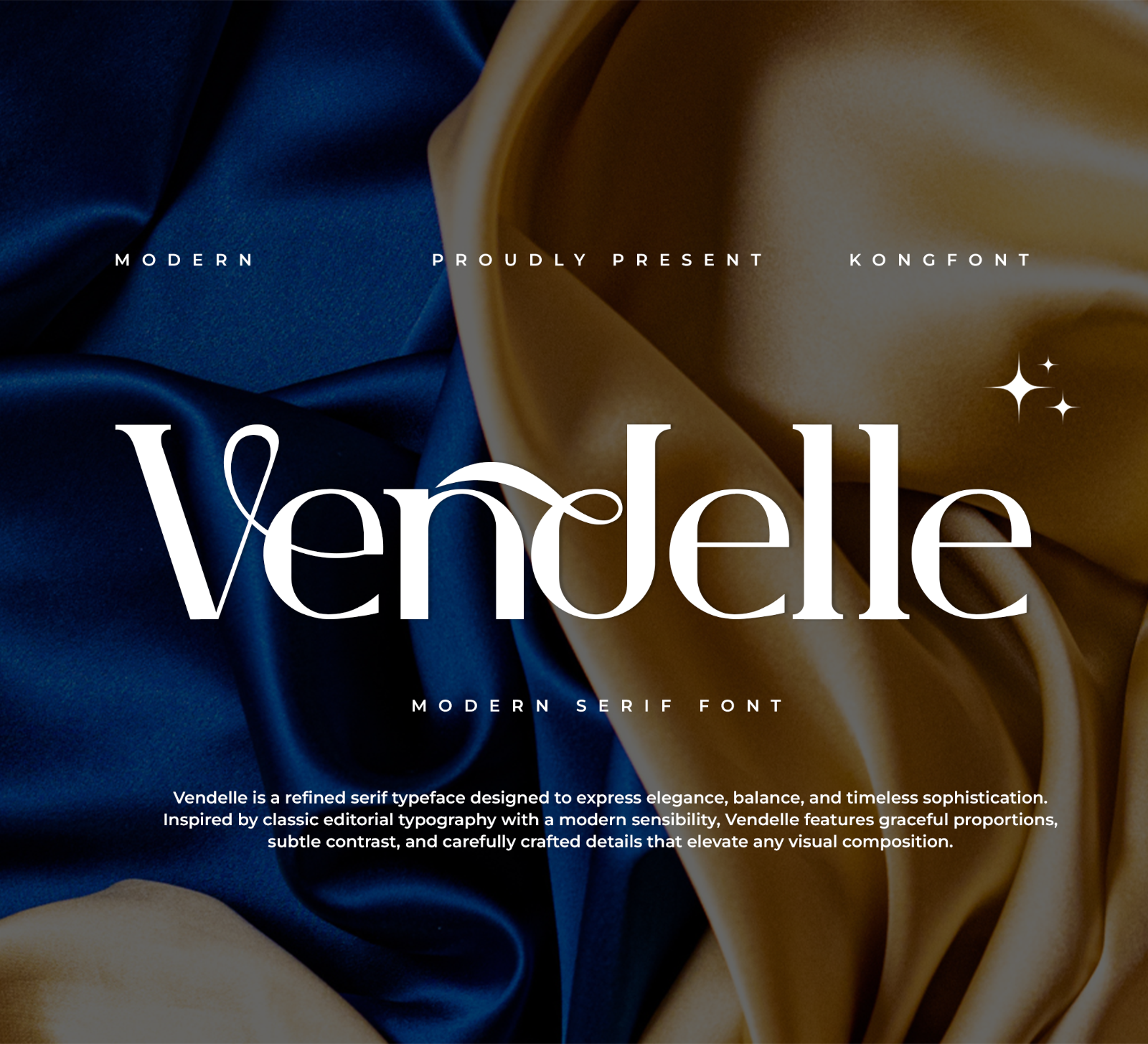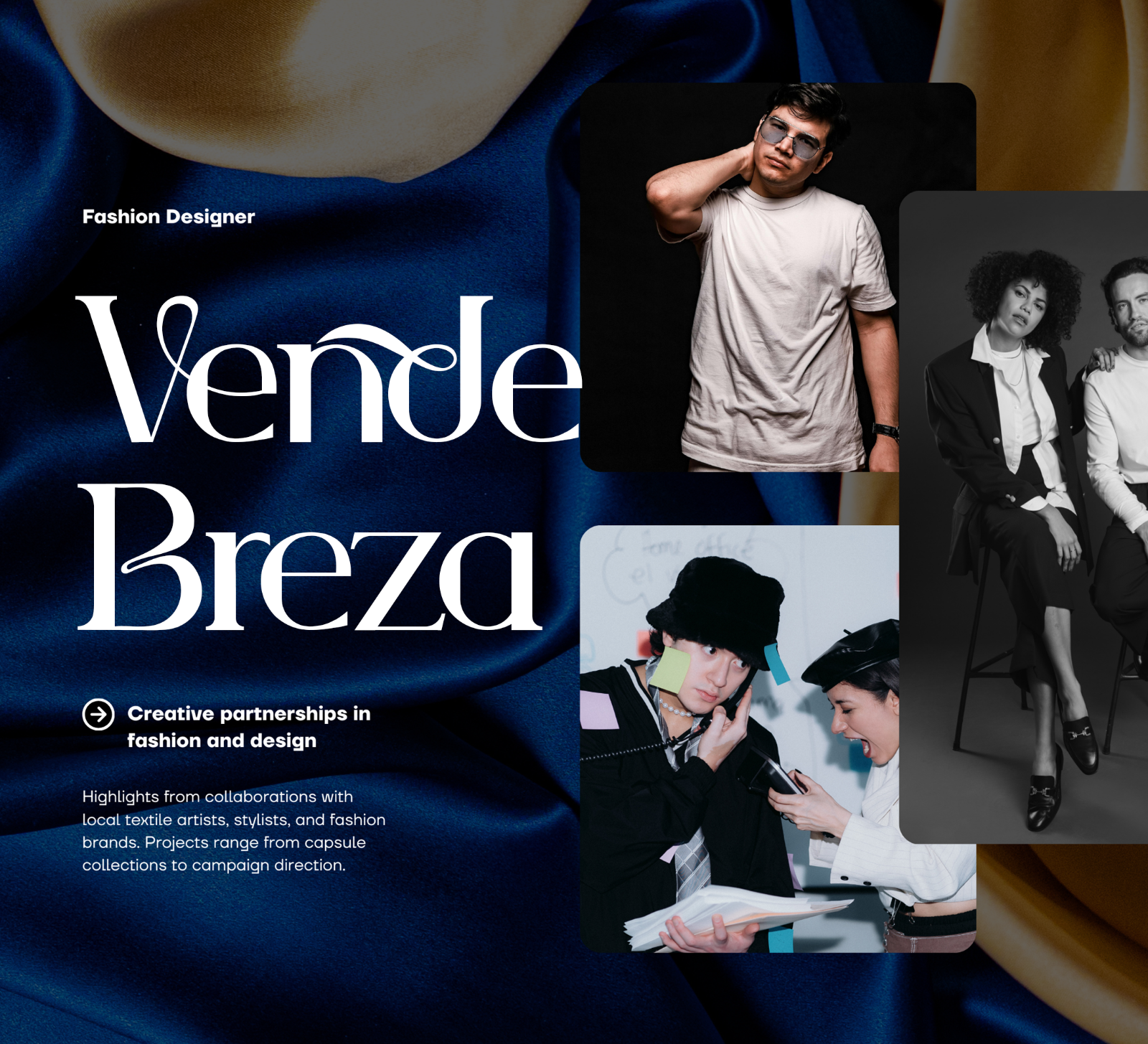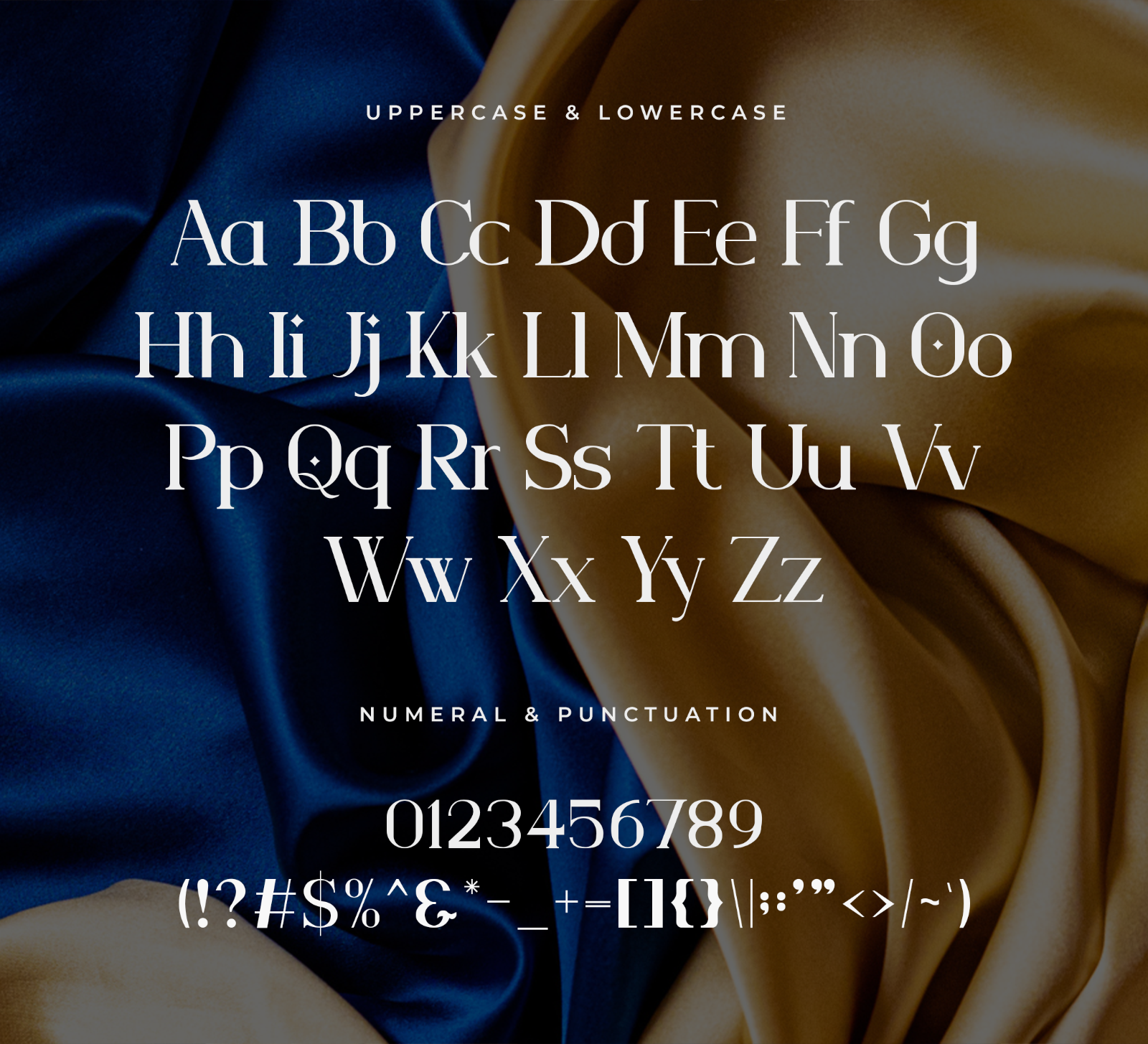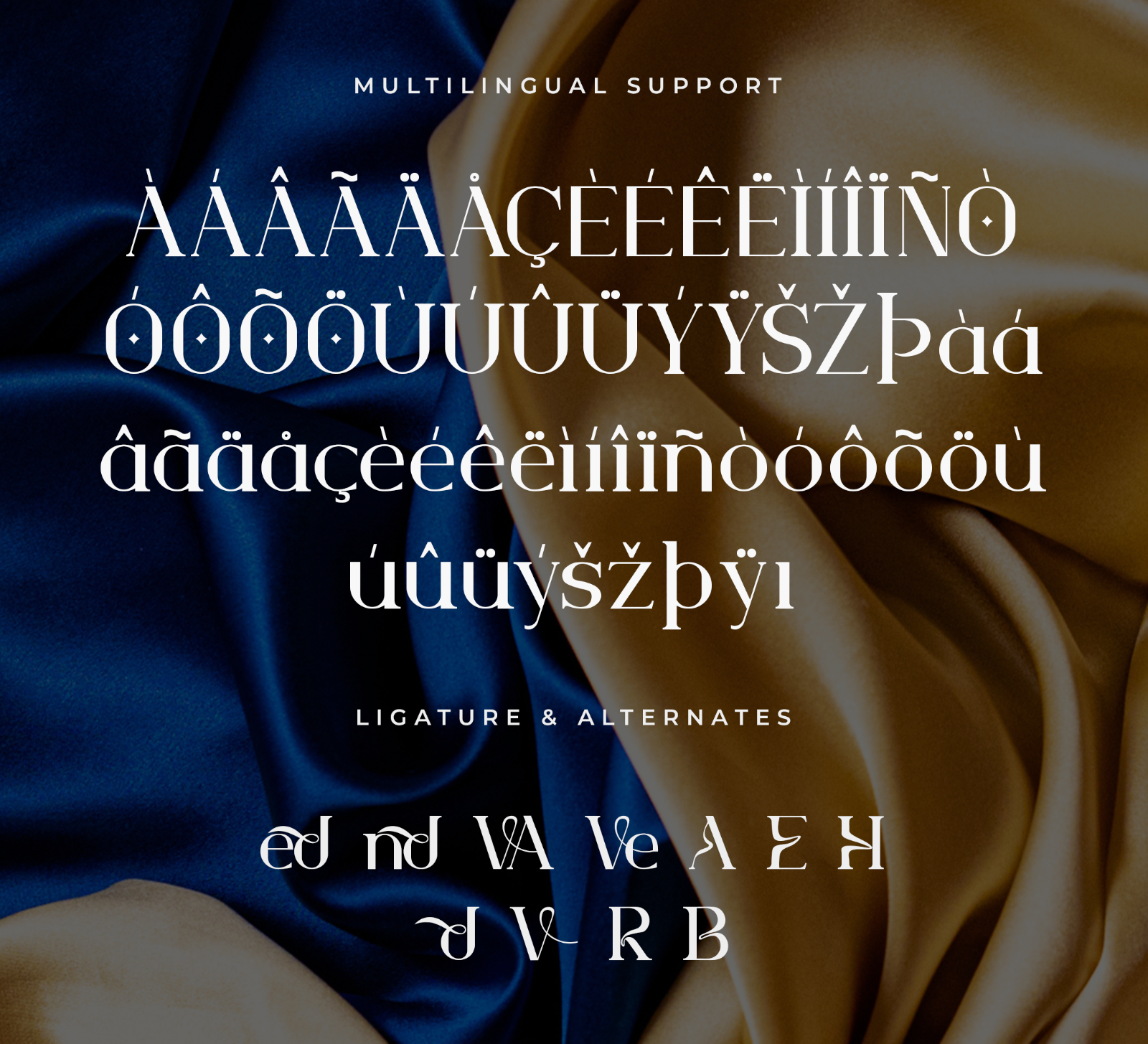
Vendelle is a modern serif font with bold letterforms, smooth curves, and a clean contemporary look. Its refined and stylish character makes it perfect for branding, headlines, and creative display projects.
• Branding
• Logos
• Business cards
• Blog headers
• Quotes
• Editorial titles
• Packaging
• Creative typography